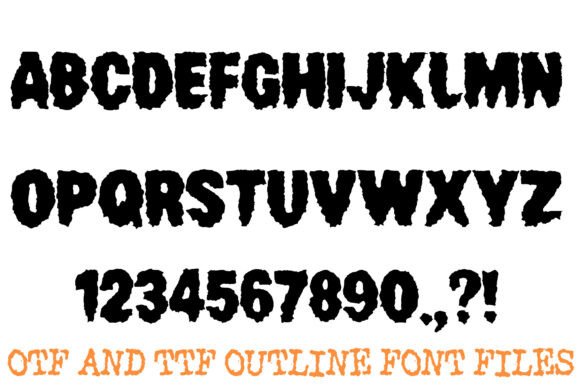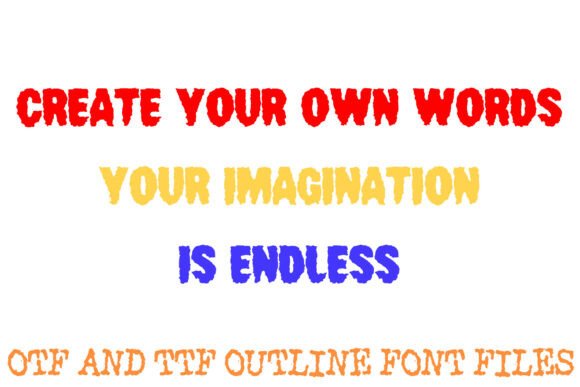
Unleashing the Power of the Chewed Torn Font
Remember that moment when you finally nailed the perfect design for your latest creative project? The one that screamed “I’m here, and I’m not going anywhere!”? For designers, that feeling is what makes it all worthwhile. And if you’re looking for a design resource that can help you achieve that same level of impact, look no further than the Chewed Torn Font.
This hand-drawn display alphabet is more than just a font – it’s a statement piece. With its heavy, bold silhouettes and unique “vibrating” texture, it’s the perfect choice for designers who want to add a raw, aggressive energy to their projects. Whether you’re working on an edgy streetwear campaign or a horror-themed branding project, the Chewed Torn Font delivers a powerful, distorted vibe that’s impossible to ignore.
- High-quality, unique design perfect for creative projects and designs
- Unique, hand-crafted texture and distortion effects giving it a distinctive, chewed appearance
Honest Review: Chewed Torn Font
I recently stumbled upon the Chewed Torn Font, and I’m excited to share my honest review. This font has been a game-changer for my creative projects, offering a unique and gritty aesthetic that’s perfect for designs that need a little edge.
- ✨ High-quality design: The font is well-crafted and consistent in its style, making it a reliable choice for any project.
- ✨ Versatile: Chewed Torn Font can be used for a wide range of creative projects, from logos and branding to editorial and advertising.
- ⚠️ Limited font weights: While the font has a unique style, it’s limited to a few font weights, which may not be suitable for all design needs.
- ⚠️ Not ideal for body text: Due to its distressed style, Chewed Torn Font may not be the best choice for large blocks of body text.
Overall, I’m impressed with the Chewed Torn Font and would highly recommend it as a design resource for any creative project. Its unique style and high-quality design make it a great addition to any designer’s toolkit.
Tips for Getting the Most Out of Chewed Torn Font
Chewed Torn Font is a versatile design resource that can add a unique touch to your creative project. To get the most out of it, experiment with different font sizes, colors, and combinations to create a visually appealing effect. You can also pair it with a transparent background to create a seamless and modern look.
Chewed Torn Font is ideal for use in a variety of creative projects, including social media graphics, posters, flyers, and digital products. Its high-quality design makes it perfect for free download and use in a range of applications, from branding and marketing materials to educational and informational content.